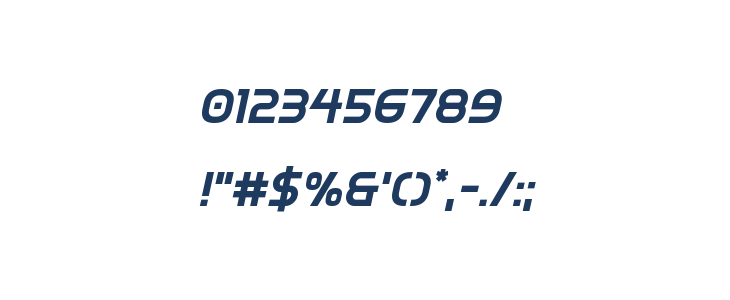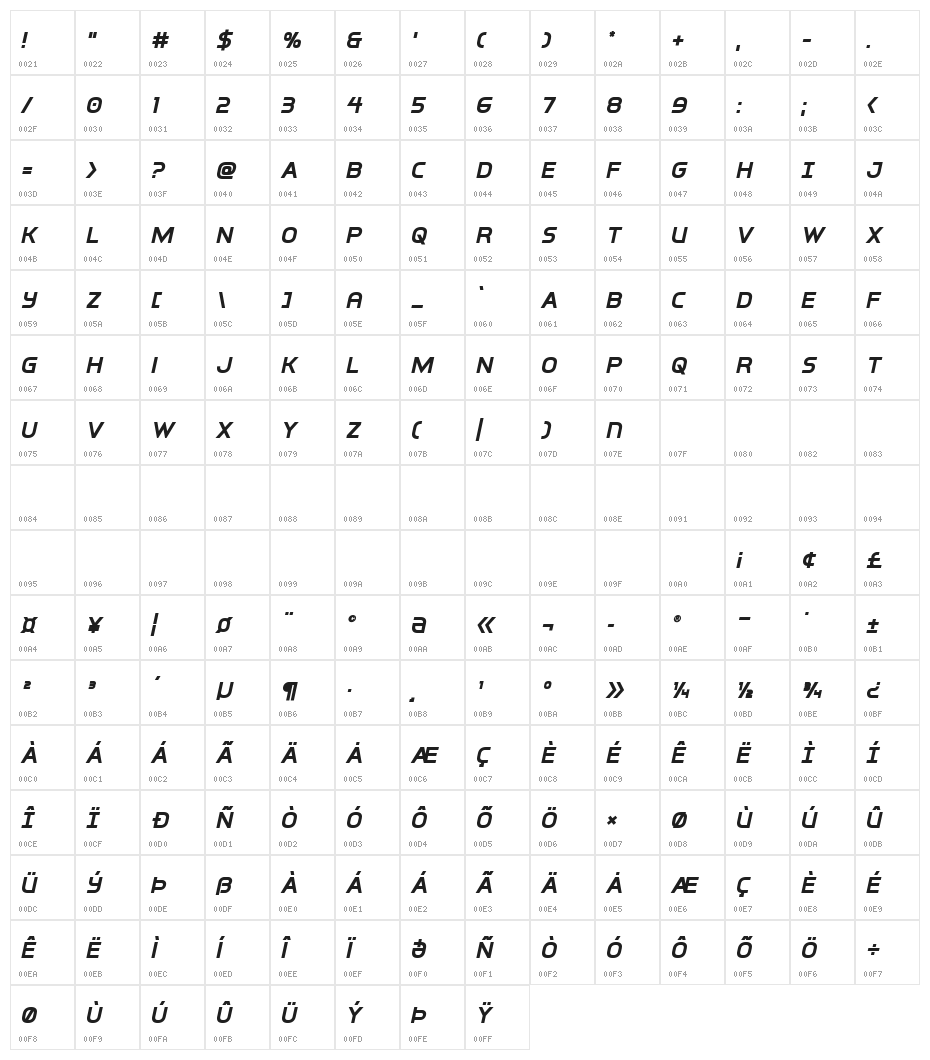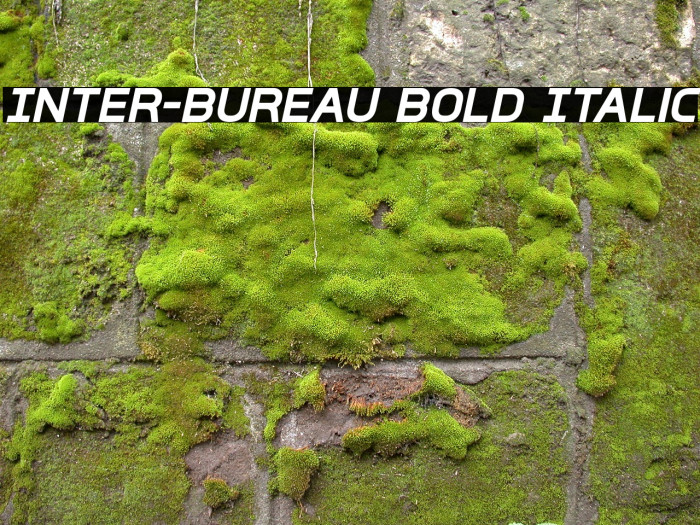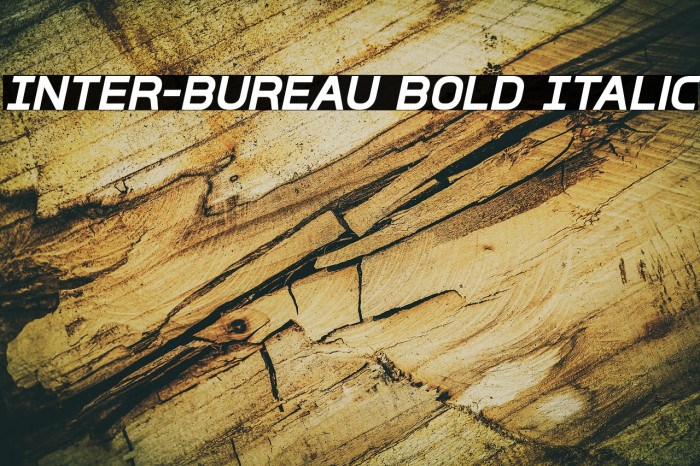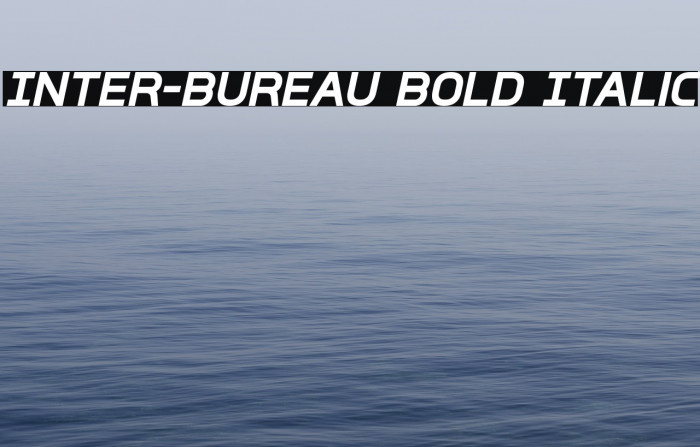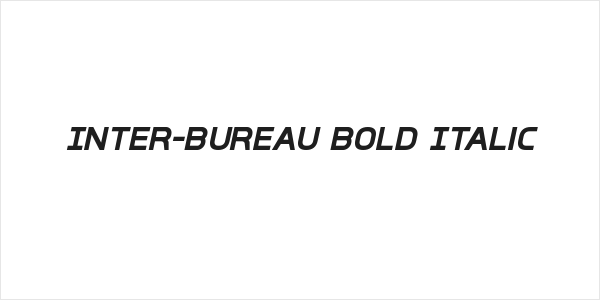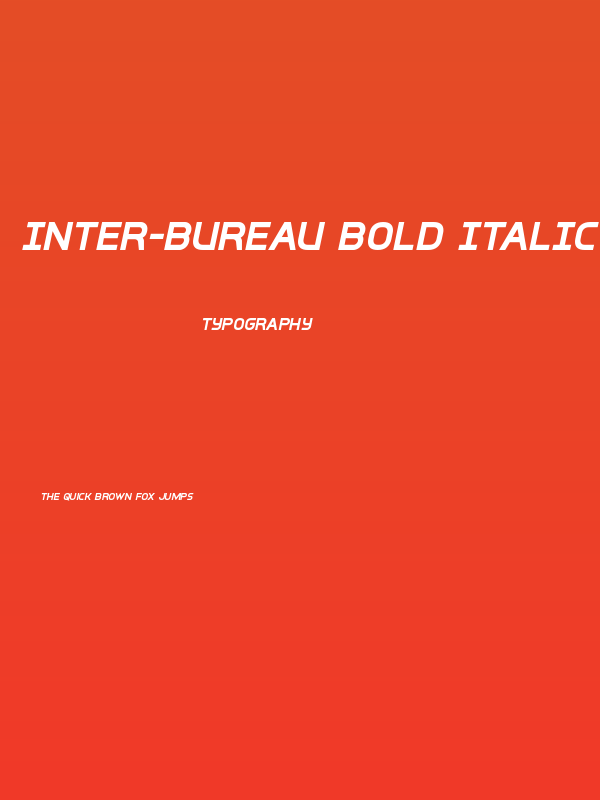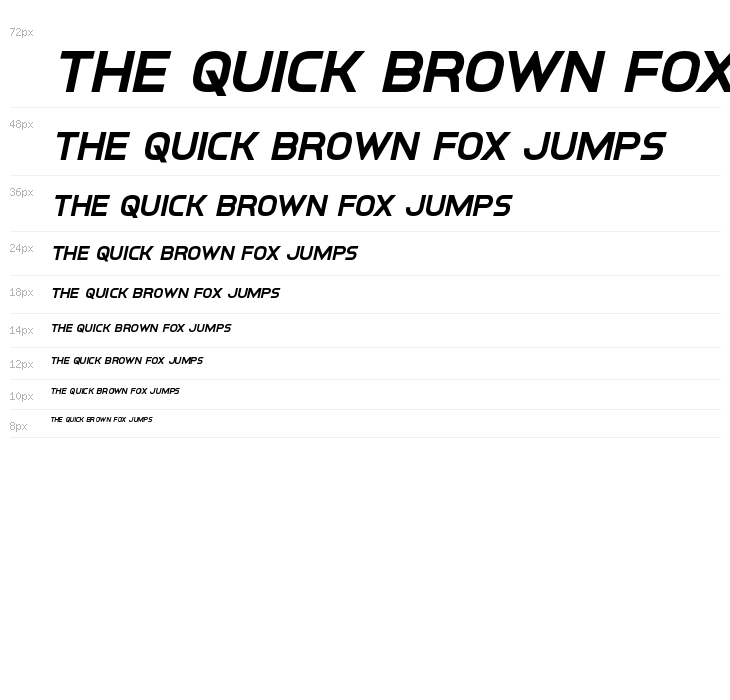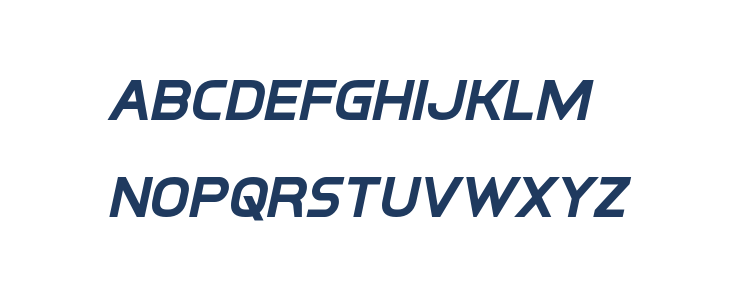
Inter-Bureau Bold Italic Font
Inter-Bureau Bold Italic Description
This font exhibits a modern and sleek design with a bold and italicized style. The characters are slightly slanted, giving a dynamic and forward-moving appearance. The strokes are consistent in thickness, providing a uniform look across all characters. The font maintains a clean and professional aesthetic, suitable for contemporary design needs. The uppercase and lowercase letters are well-proportioned, and the numerals are clear and easy to read. Special characters are distinct and maintain the overall style of the font, making it versatile for various applications.
| Use Case | Headlines, Logos, Digital Media |
| Proposed Projects | Ideal for branding, advertising, and digital media projects that require a modern and professional look. |